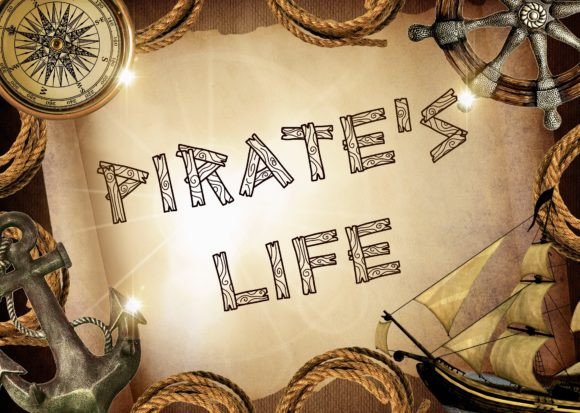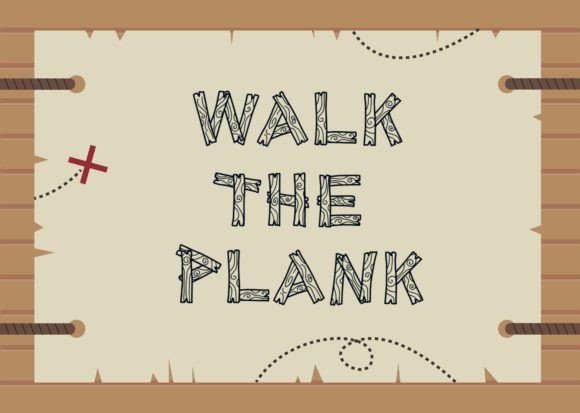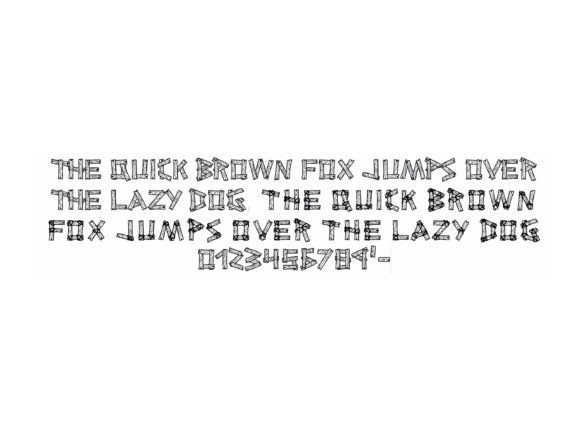
Ahoy Mates Font: A Magical Display Font for Your Designs
Ahoy Mates is an incredibly cool and unique display font that has a modern yet whimsical style, and it will undoubtedly immerse your designs into a magical world. This font is perfect for designers and crafters who are looking for a distinctive and eye-catching typography to make their projects stand out.
What Makes Ahoy Mates Font So Special?
Ahoy Mates font is a one-of-a-kind display font that boasts a modern yet playful style. Its unique design elements, such as bold lines, irregular shapes, and charming details, make it an excellent choice for a wide range of design projects. Whether you’re creating a logo, poster, or social media graphic, Ahoy Mates font is sure to add a touch of magic to your work.
Key Features of Ahoy Mates Font
- Unique and Whimsical Design: Ahoy Mates font features a distinctive and imaginative design that will set your projects apart from the rest.
- Modern Style: The font’s modern style ensures that it will fit in with current design trends, while its whimsical elements add a touch of playfulness.
- High-Quality Design: Ahoy Mates font is designed with high-quality craftsmanship in mind, ensuring that it will look great in any design project.
- Multipurpose: This font is versatile and can be used for a wide range of design projects, from logos and posters to social media graphics and more.
How to Use Ahoy Mates Font in Your Designs
Using Ahoy Mates font in your designs is easy and straightforward. Here are a few tips to get you started:
- Pair it with Other Fonts: Ahoy Mates font pairs well with other fonts, so feel free to experiment with different combinations to find the perfect look for your project.
- Use it for Headings and Titles: The font’s bold and playful style makes it perfect for headings and titles, where you want to grab the viewer’s attention.
- Experiment with Colors and Textures: Ahoy Mates font looks great in a variety of colors and textures, so don’t be afraid to experiment and find the perfect combination for your design.
Who Can Benefit from Using Ahoy Mates Font?
Ahoy Mates font is perfect for a wide range of designers and crafters, including:
- Graphic Designers: If you’re a graphic designer looking for a unique and eye-catching font to use in your projects, Ahoy Mates font is an excellent choice.
- Crafters: If you’re a crafter who loves to create handmade projects, such as cards, scrapbook pages, and other paper crafts, Ahoy Mates font is a great addition to your design toolkit.
- Social Media Influencers: If you’re a social media influencer looking for a way to make your graphics stand out, Ahoy Mates font is a great option to consider.
In conclusion, Ahoy Mates font is an incredibly cool and unique display font that is sure to immerse your designs into a magical world. With its modern yet whimsical style, high-quality design, and multipurpose versatility, this font is perfect for designers and crafters who are looking for a distinctive and eye-catching typography to make their projects stand out. So why not give Ahoy Mates font a try and see the magic it can bring to your designs?
- Is Ahoy Mates font easy to read?
- Ahoy Mates font is a display font, so it’s best used for headings and titles rather than body text. However, it’s still easy to read at larger sizes.